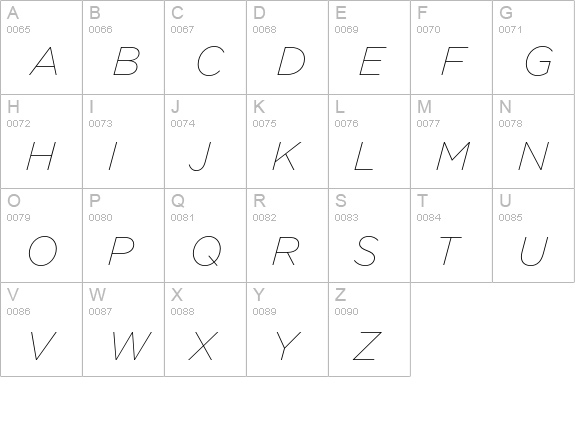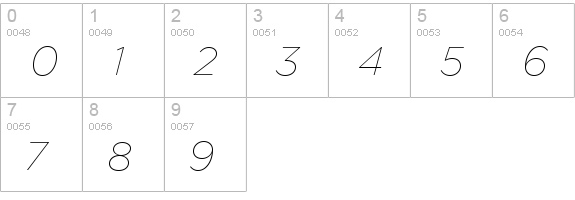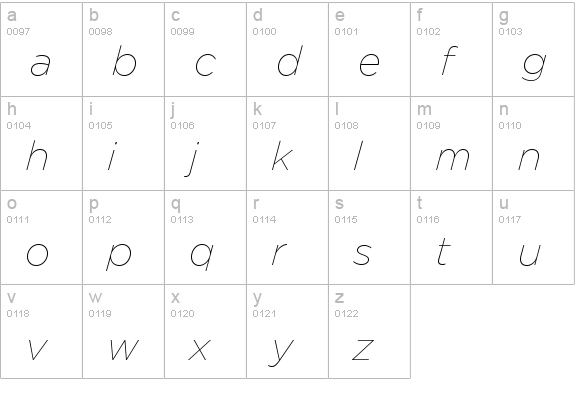
Gotham Thin Italic Font Details
Gotham Thin Italic is a delicate, low-contrast, italic variant in the Gotham typeface family \xE2\x80\x94 well suited to fashion editorial, minimal branding, and high-contrast display.
Gotham Thin Italic font is a sleek and elegant typeface that exudes sophistication and modernity. Its thin weight and italic style give it a unique and stylish appearance, making it perfect for adding a touch of refinement to any design project. Whether you are creating a logo, website, or print materials, Gotham Thin Italic font will bring a sense of class and sophistication to your work. Best of all, Gotham Thin Italic font is available for free download at FontsMarket.com. This means you can access this high-quality font without spending a dime, making it a valuable addition to your font collection. Don't miss out on the opportunity to elevate your designs with the timeless beauty of Gotham Thin Italic font - download it for free today!